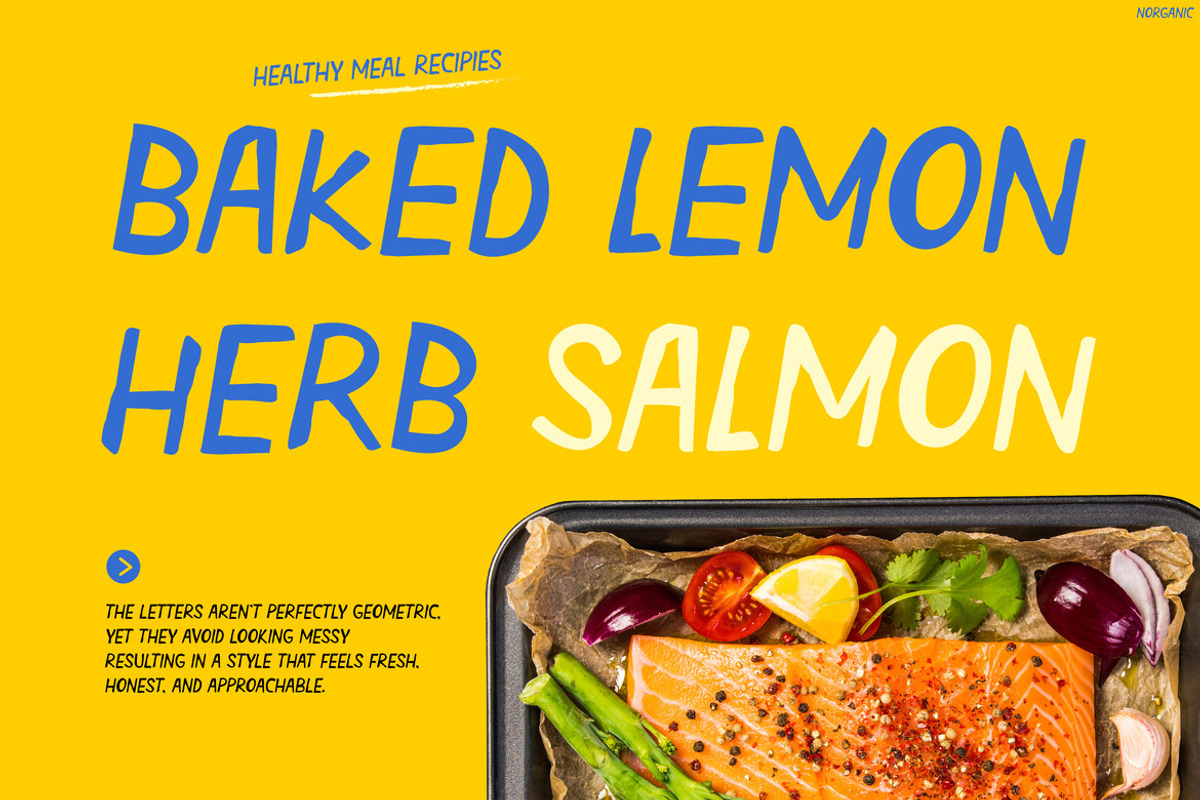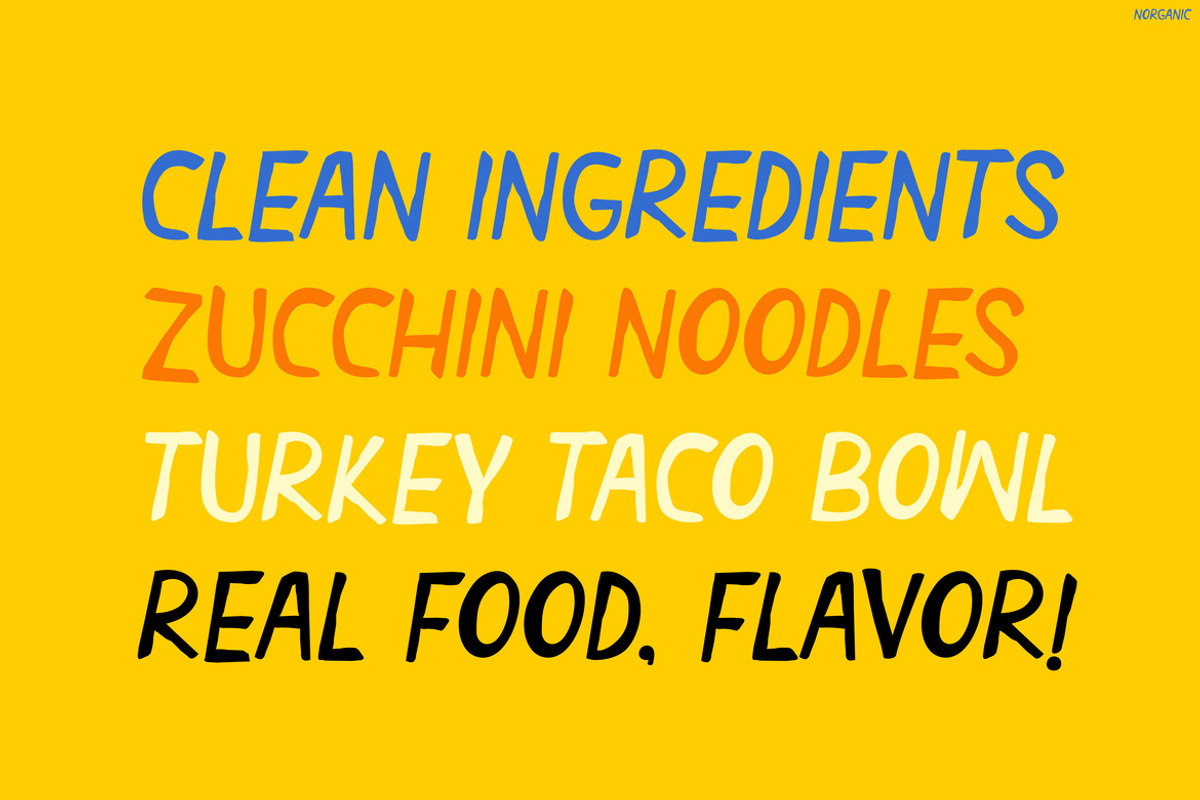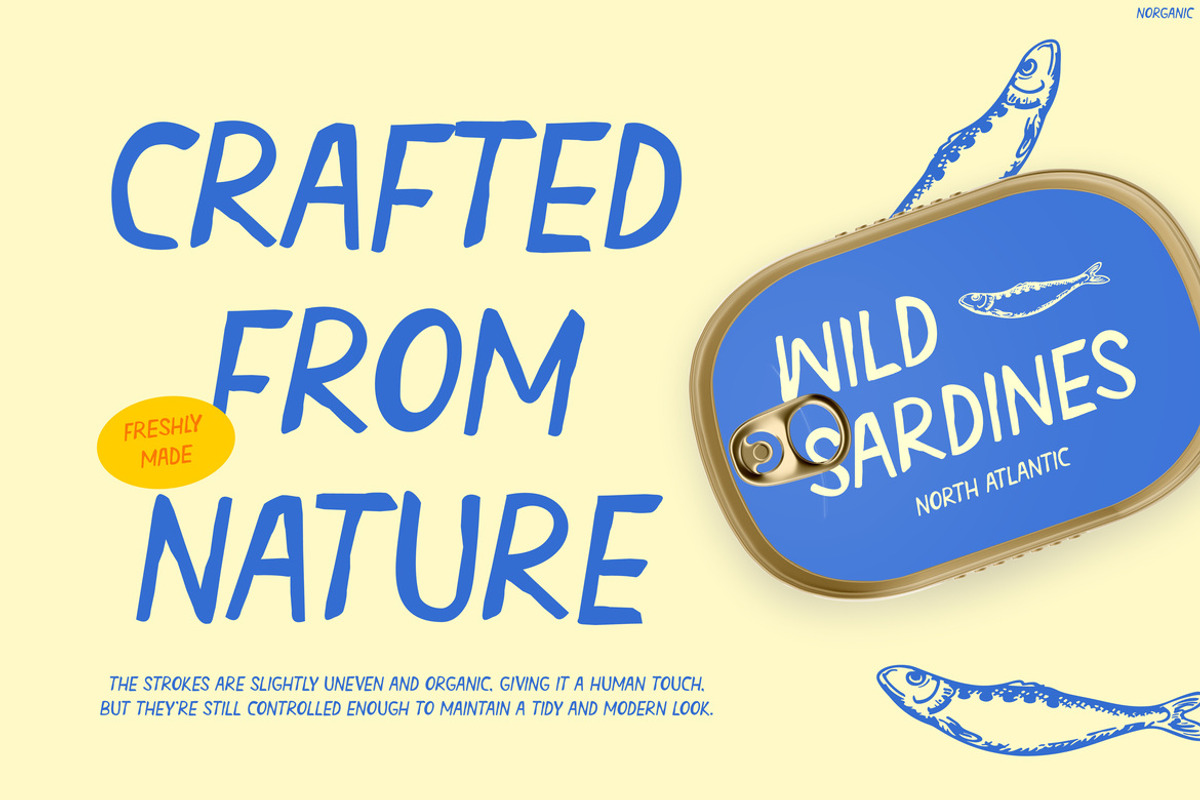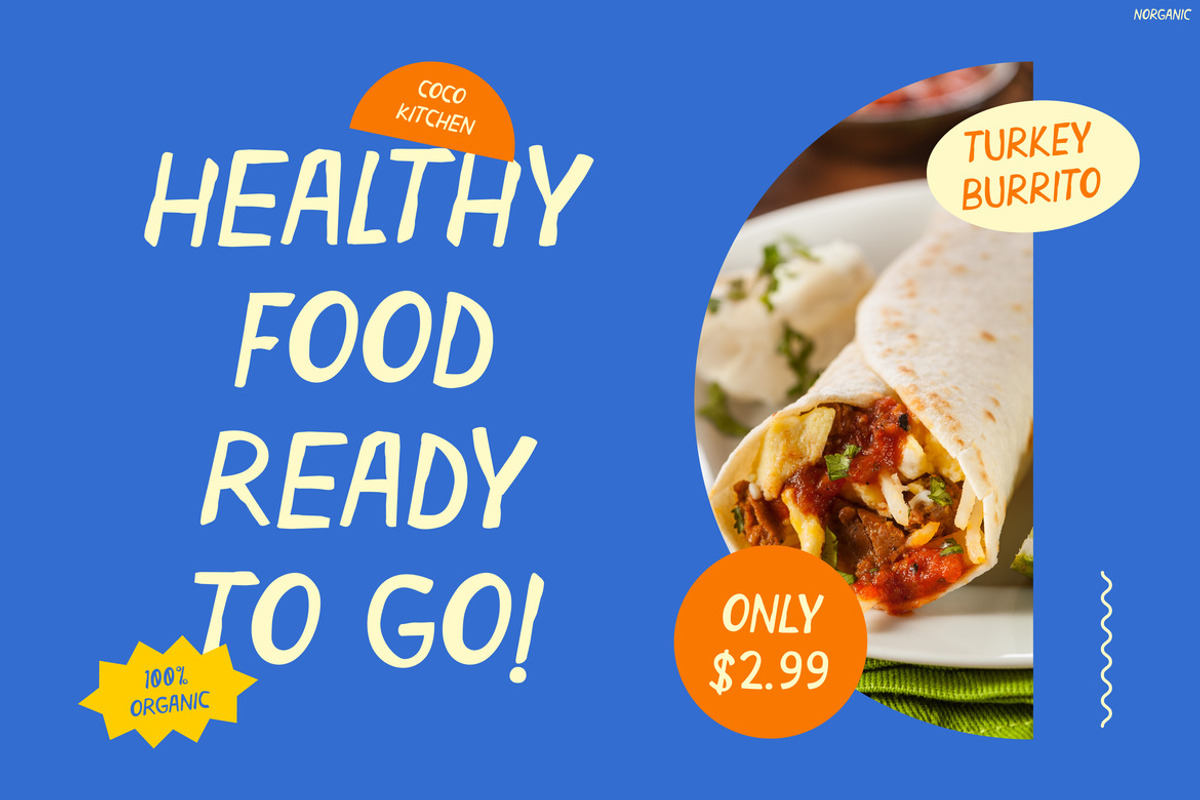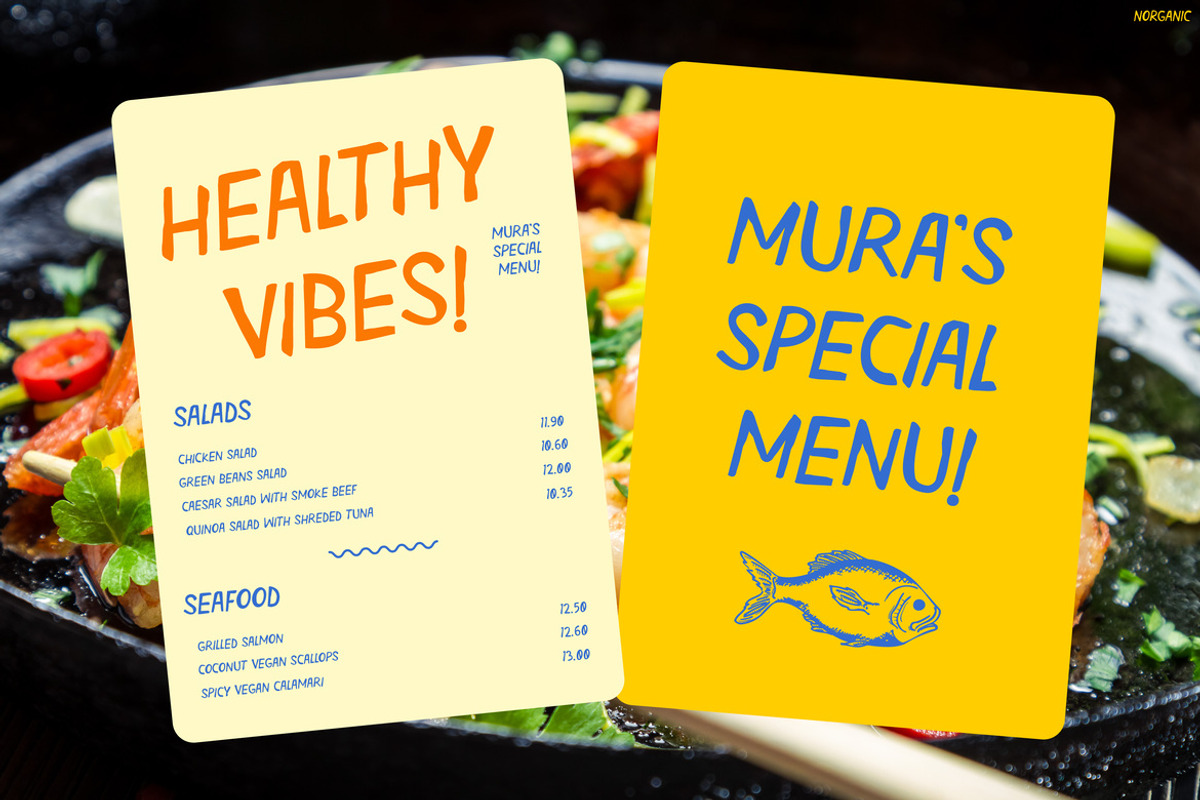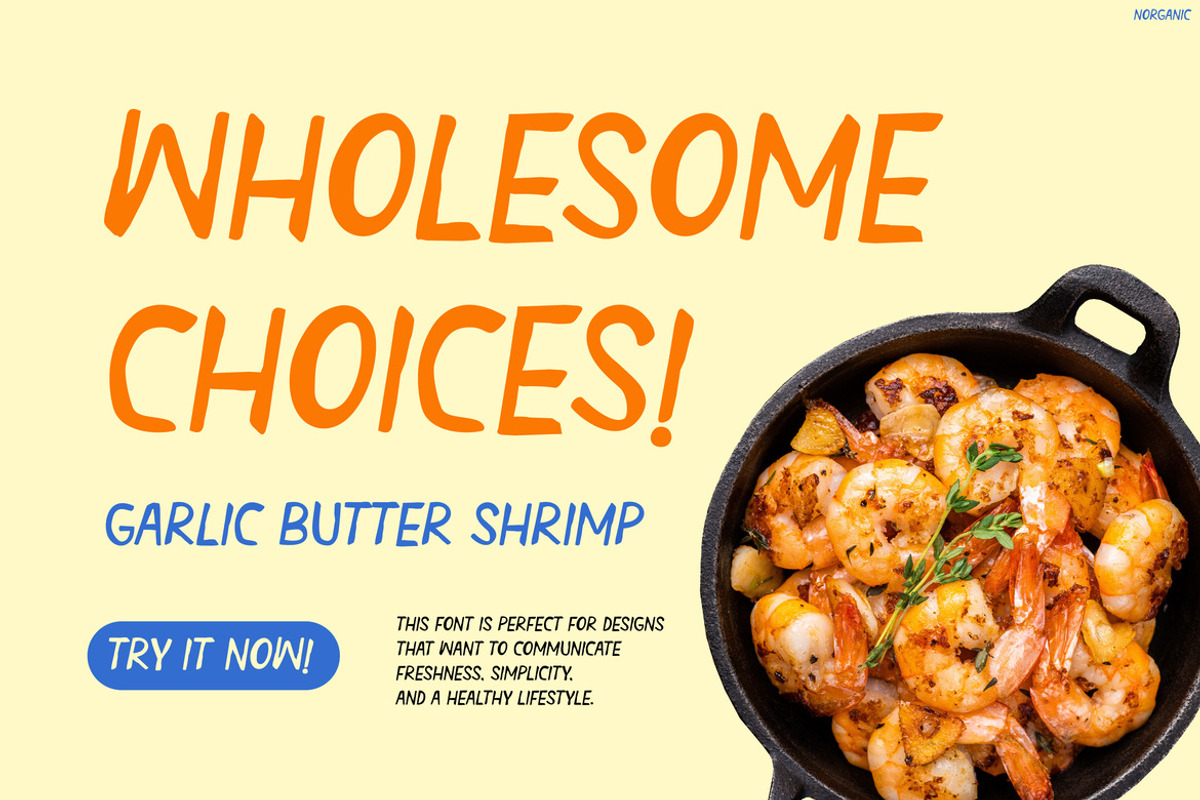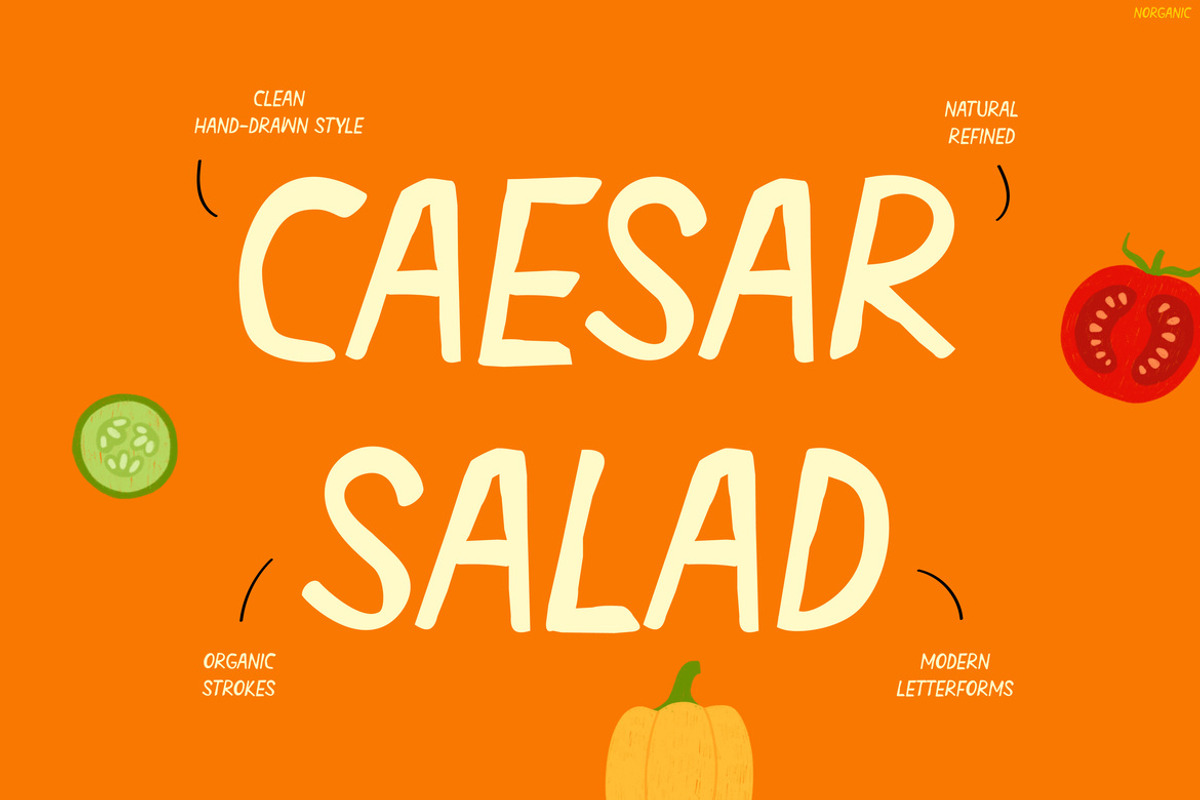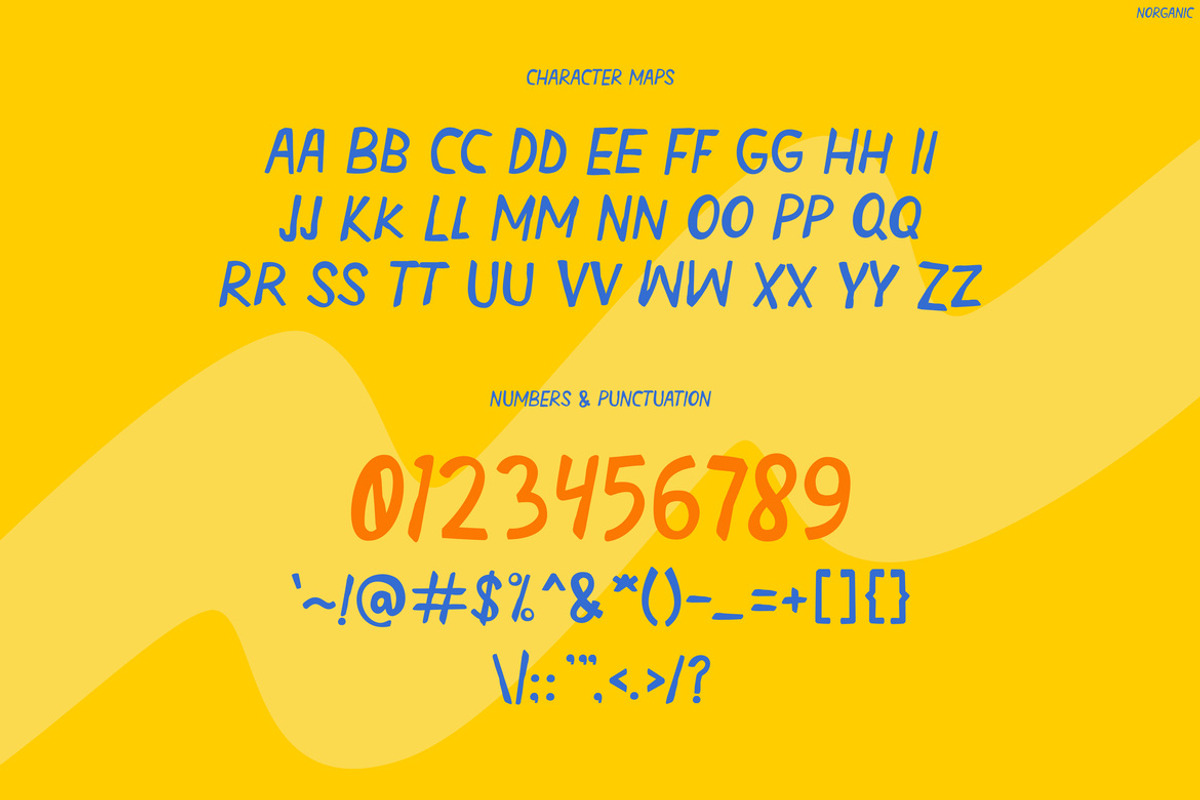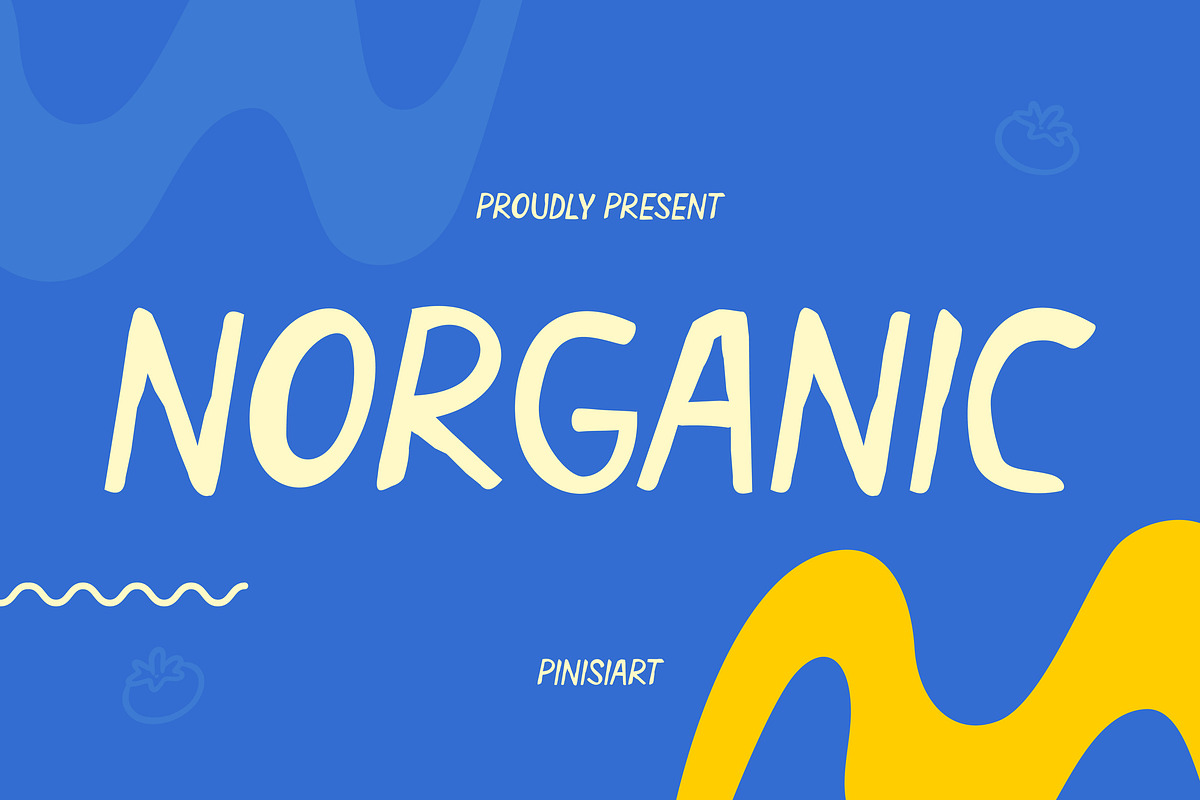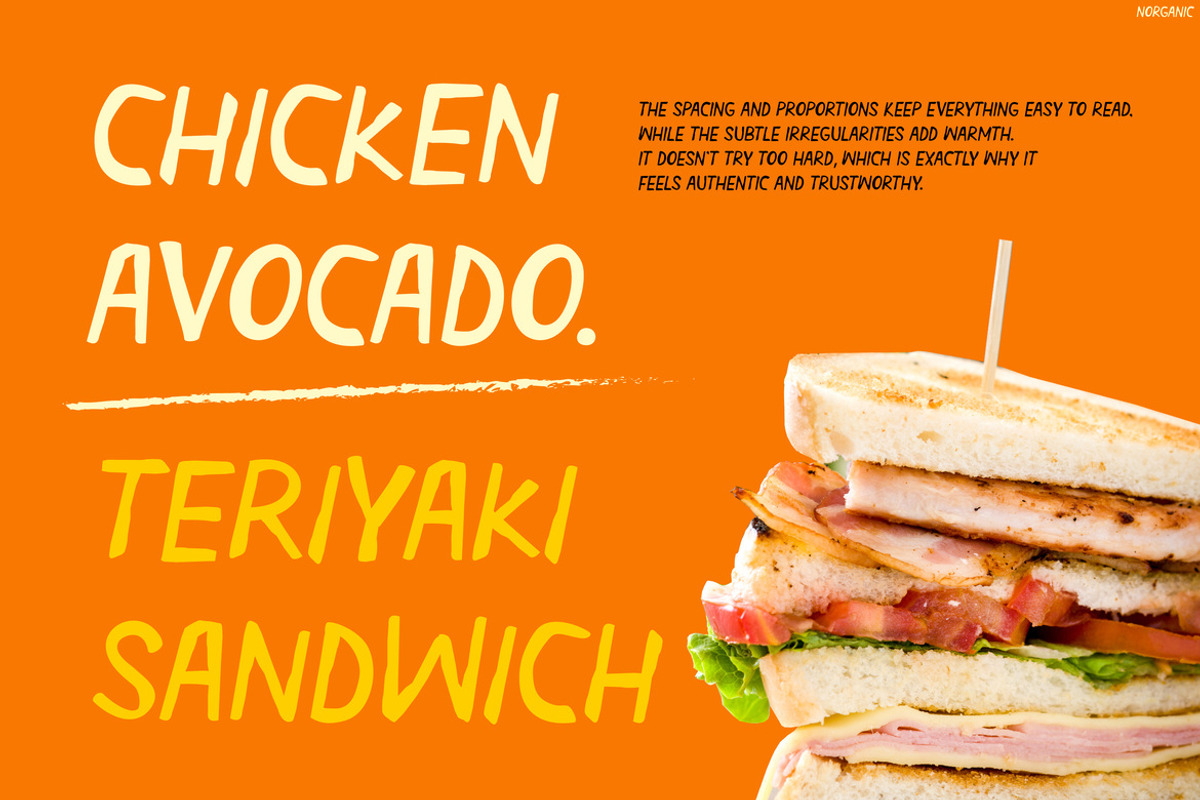
Norganic
Norganic – Fresh Playful Organic Display Font
Kids Font Norganic brings a fresh and lively feel with hand-drawn strokes and natural imperfect lines. Its clean yet quirky shapes make it engaging and easy to read. Because of this, the font feels modern, friendly, and fun. Moreover, the mix of playful curves and simple structure creates a unique organic look. It works well for designs that need a natural and healthy vibe. In addition, its bold presence helps your headlines stand out without feeling too heavy.
Crafted to reflect freshness and creativity, Kids Font Norganic blends playful typography with an organic touch. Its smooth flow and uneven edges give a handmade feel. As a result, your design looks warm and authentic. In addition, this font pairs well with bright colors and food visuals. It also works across both digital and print media. Because of its balanced style, it fits both fun and semi-professional projects. Whether you design menus, labels, or social posts, this font keeps things lively and clear. It also helps build a strong and memorable visual identity.